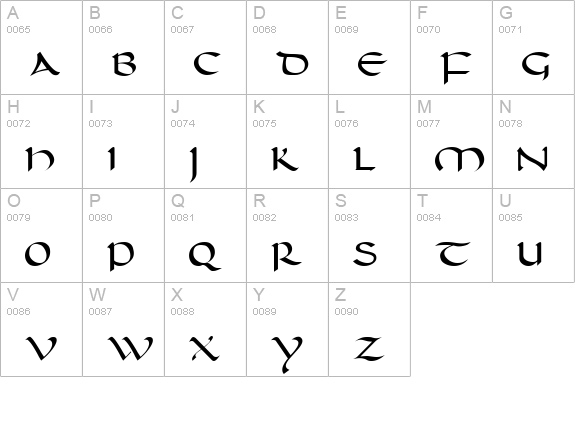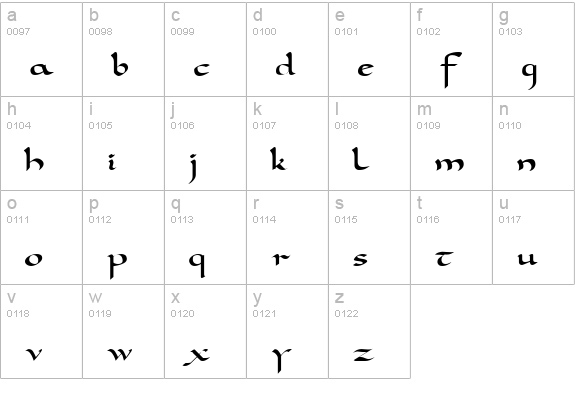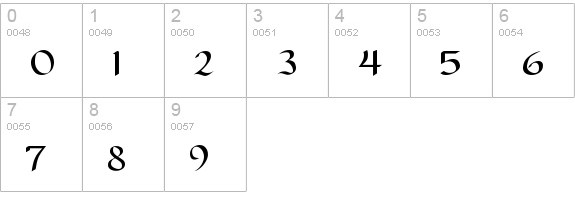
Daphne Font Details
Daphne font is a versatile and elegant typeface that adds a touch of sophistication to any project. With its graceful curves and sleek lines, Daphne is perfect for creating eye-catching designs, whether for branding, editorial work, or digital content. What sets Daphne font apart is not only its timeless appeal but also the fact that it is available for free download at FontsMarket.com. This means that you can easily access this stunning font and incorporate it into your creative endeavors without any cost. Whether you're a seasoned designer looking to freshen up your font collection or a newcomer eager to experiment with typography, Daphne font is a must-have addition. Its blend of classic charm and modern flair makes it a versatile choice for a wide range of design projects. Download Daphne font today and elevate your designs with this exquisite typeface.